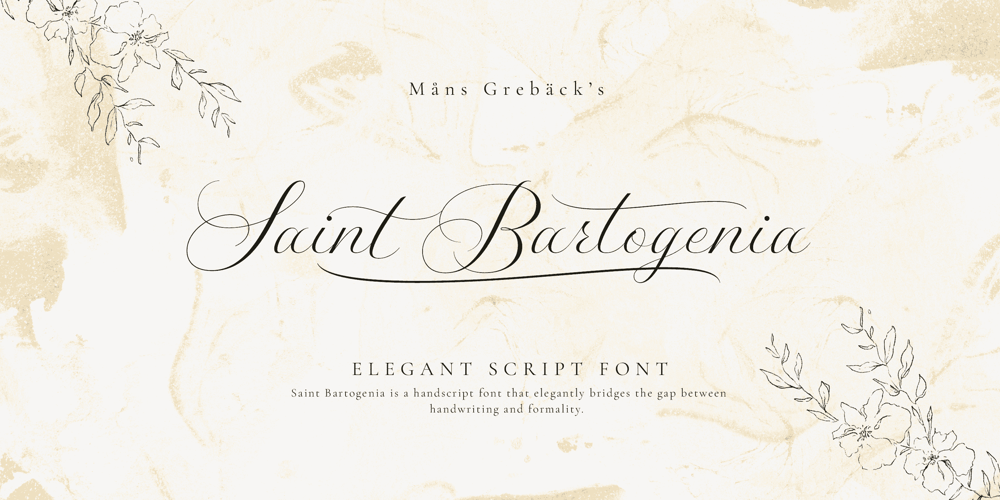
Saint Bartogenia Font Family was designed by Måns Grebäck and published by Mans Greback. Saint Bartogenia contains 4 styles and family package options. Saint Bartogenia is a handscript font that elegantly bridges the gap between handwriting and formality. Exuding a beautiful and lovely aura, this font is a perfect choice for wedding invitations and other elegant stationery. Its script form is both classy and fine, mirroring the artistry of traditional calligraphy with a modern twist. The thin, delicate lines of Saint Bartogenia create a sense of sophistication and grace, making each character swirl across the page like a light wind.Use underscore _ anywhere in a word to make a swash. Example: Ele_gantUse multiple underscores to make longer underlines. Example: Wonder___worldThe font is built with advanced OpenType functionality and guaranteed top-notch quality, containing stylistic and contextual alternates, ligatures and more automatic and manual features; all to give you full control and customizability. It has extensive lingual support, covering all Latin-based languages, from North Europa to South Africa, from America to South-East Asia. It contains all characters and symbols you’ll ever need, including all punctuation and numbers. Saint Bartogenia is a manifestation of Mans Greback’s commitment to combining aesthetic beauty with practical usability, making it a go-to choice for designers seeking to infuse their projects with a touch of finesse.